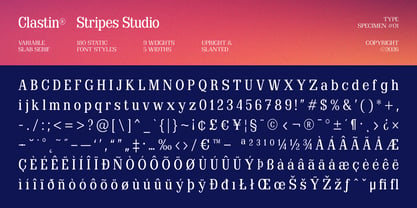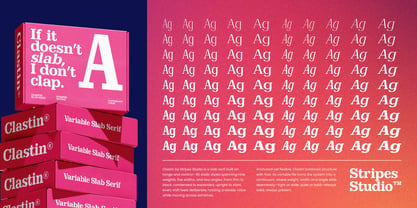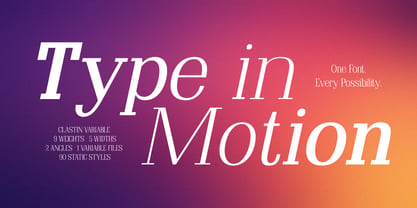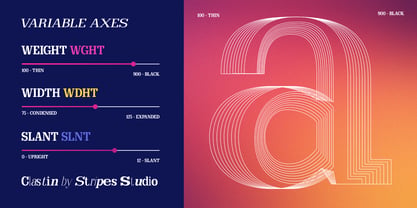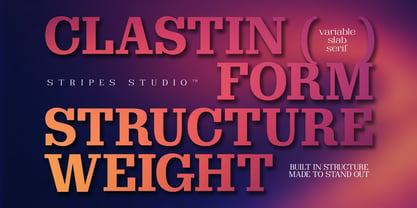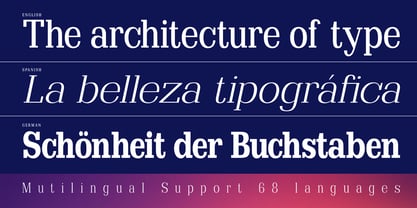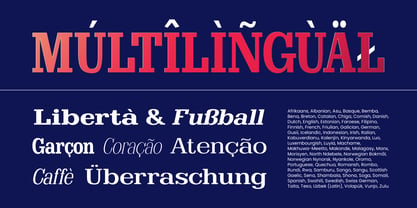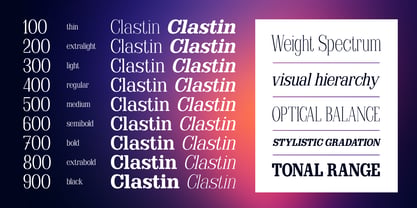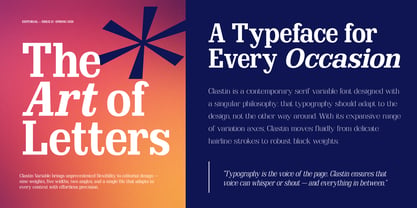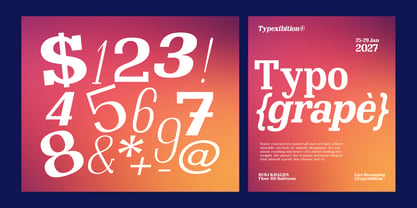
Clastin
by Stripes Studio
The Clastin Font Family was designed by Yur Lis and published by Stripes Studio. Clastin contains 181 styles and family package options. More about this family
Clastin is a modern variable slab serif family built to deliver strength, elegance, and versatility in one complete system. Designed with bold architectural
structure and refined serif details, Clastin balances classic slab serif character with a contemporary editorial feel, making it suitable for both expressive
headlines and sophisticated branding projects.
Featuring an extensive collection of 90 styles, Clastin offers exceptional flexibility for designers who need a powerful typographic system. The family includes 9
weights, 5 width variations, and 2 angle styles (upright and italic), allowing seamless control across a wide range of creative applications. From condensed dramatic
titles to wide premium layouts, Clastin adapts effortlessly to modern design needs.
Its clean curves, sturdy serifs, and carefully crafted proportions create a confident visual presence while maintaining excellent readability. Whether used for
luxury branding, magazine layouts, packaging, posters, fashion campaigns, technology identities, or cinematic typography, Clastin brings a distinctive and
professional voice to every composition.
The variable font format provides smooth customization across weight and width axes, helping designers work faster and create more dynamic typography systems with
precision and consistency.
Clastin is more than a slab serif — it is a complete creative toolkit designed for impactful visual storytelling.